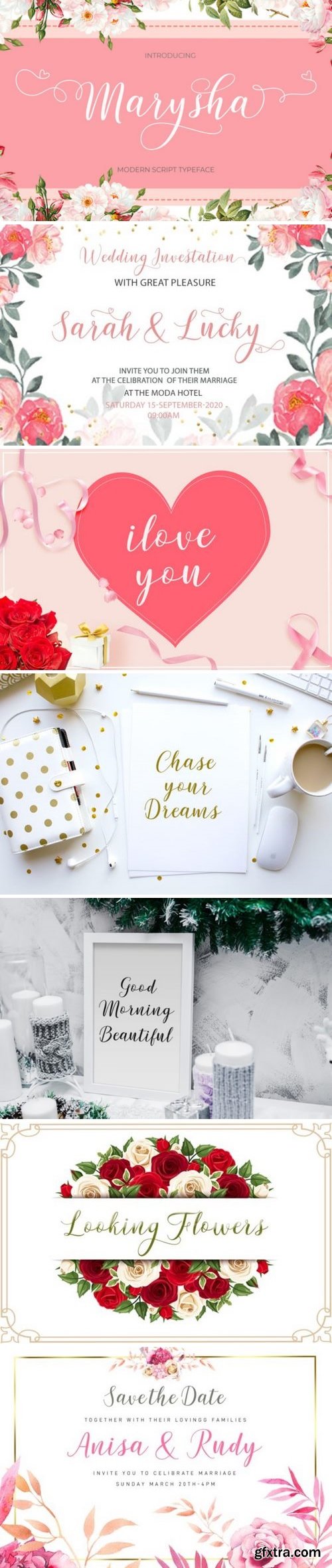
The Marysha is a trendy and feminine script. Its modern style is perfect for wedding invitations, thank you cards, quotes, greeting cards, logos, business cards and much more!